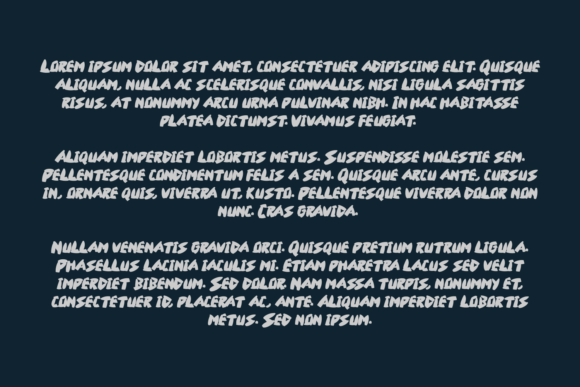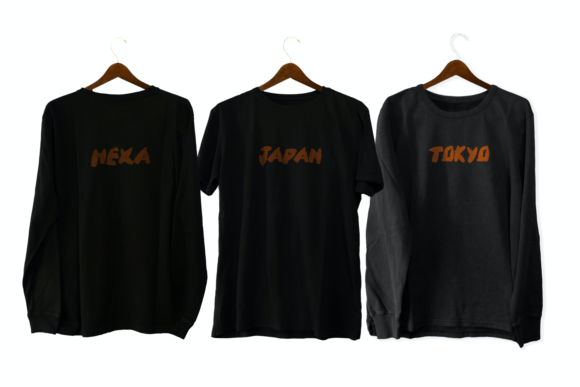
Introducing GameBro Font: The Ultimate Display Font for Bold Designs
Are you a designer or crafter looking for a font that can add a touch of boldness and coolness to your designs? Look no further than GameBro Font. This display font is perfect for creating eye-catching designs that require a thick, bold, and attention-grabbing lettering style. In this article, we’ll explore the features and benefits of GameBro Font, and how it can elevate your designs to the next level.
What is GameBro Font?
GameBro Font is a cool, bold, and thick lettered display font that is designed to make a statement. Its sturdy and robust lettering style makes it perfect for designs that require a strong and confident look. Whether you’re creating a logo, advertisement, or clothing design, GameBro Font is the perfect choice.
Key Features of GameBro Font
- Bold and Thick Lettering Style: GameBro Font features a bold and thick lettering style that is sure to grab attention.
- Cool and Modern Design: The font has a cool and modern design that is perfect for creating trendy and stylish designs.
- Versatile: GameBro Font is versatile and can be used for a variety of designs, including t-shirts, sportswear, logos, advertisements, clothing, and more.
- Easily Readable: Despite its bold and thick lettering style, GameBro Font is easily readable, making it perfect for designs that require a clear and concise message.
Benefits of Using GameBro Font
Using GameBro Font can bring numerous benefits to your designs. Here are a few:
- Stand Out from the Crowd: GameBro Font’s bold and thick lettering style ensures that your designs stand out from the crowd and grab attention.
- Professional Look: The font’s modern and cool design gives your designs a professional look that is sure to impress.
- Time-Saving: GameBro Font is easily readable, which means you can save time and effort in creating designs that require a clear and concise message.
Use Cases for GameBro Font
GameBro Font is perfect for a variety of designs, including:
- T-Shirts and Apparel: Create eye-catching t-shirt designs that are sure to stand out.
- Sportswear: Design bold and stylish sportswear that is perfect for athletes and sports enthusiasts.
- Logos: Create professional and memorable logos that represent your brand.
- Advertisements: Design attention-grabbing advertisements that drive results.
- Clothing and Accessories: Create stylish and trendy clothing and accessory designs that are perfect for fashion enthusiasts.
Tips for Using GameBro Font
Here are a few tips for using GameBro Font:
- Use it for Headlines: GameBro Font is perfect for headlines and titles, where you want to grab attention and make a statement.
- Experiment with Colors: Try out different colors and color combinations to create unique and eye-catching designs.
- Pair it with Other Fonts: Experiment with pairing GameBro Font with other fonts to create interesting and dynamic designs.
| Font Name | GameBro Font |
| Author | Mozyen Studio |
In conclusion, GameBro Font is a cool, bold, and thick lettered display font that is perfect for designers and crafters who want to create eye-catching designs. Its versatile and easily readable design makes it perfect for a variety of designs, including t-shirts, sportswear, logos, advertisements, clothing, and more. With its numerous benefits and use cases, GameBro Font is a must-have font for any designer or crafter looking to elevate their designs to the next level.